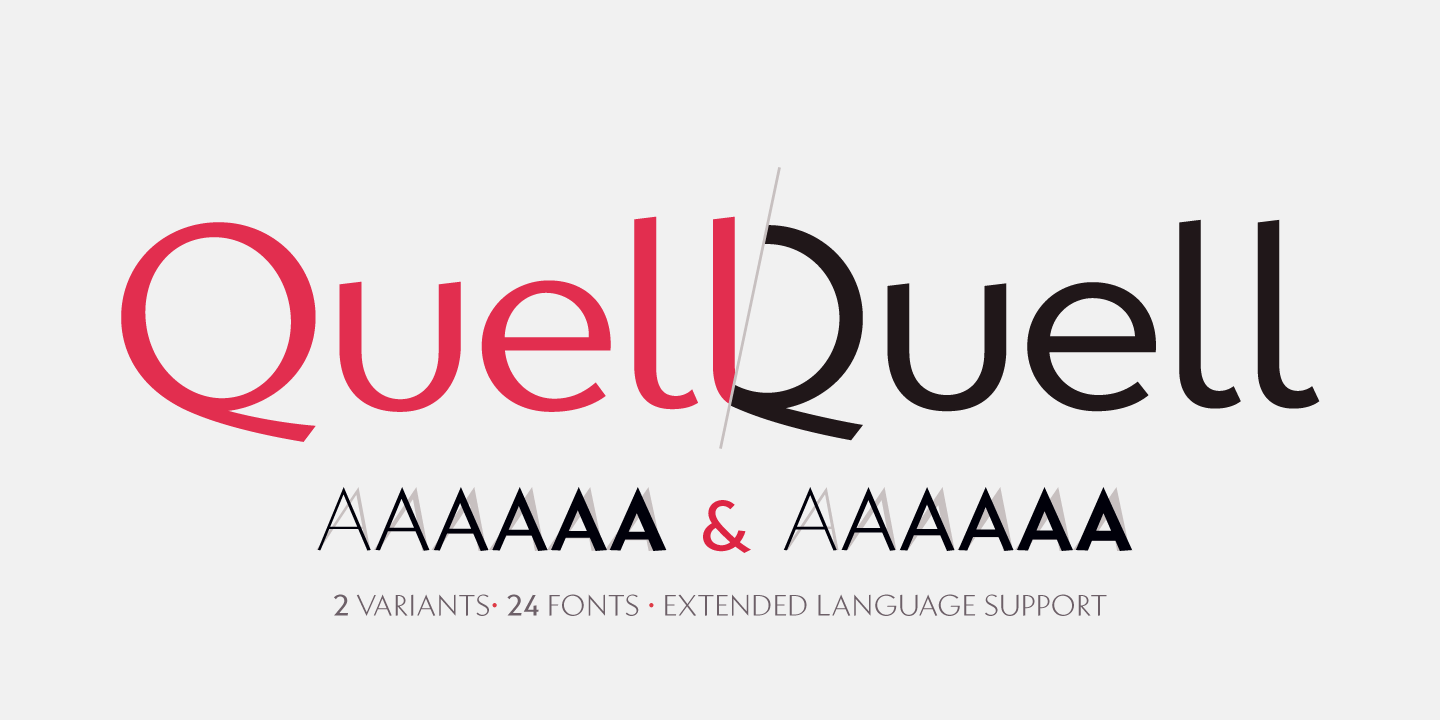
The Quell Font is perfect for various design applications including peaceful wellness branding, calming meditation app interfaces, tranquil spa marketing, serene therapy clinic graphics, mindfulness retreat materials, peaceful nature sanctuary signage, calming mental health resources, and soothing relaxation product packaging. This tranquil typeface works exceptionally well for wellness brands and projects requiring peaceful calm with therapeutic appeal.
What makes Quell Font exciting is its calming and soothing character that instantly quiets the mind and creates peaceful environments with therapeutic tranquility. The font features gentle letterforms with serene aesthetics and calming qualities that evoke feelings of peace, relaxation, and inner harmony. Its tranquil styling and quelling appearance make it perfect for brands that want to provide relief from stress and connect with audiences seeking peaceful sanctuary from life's overwhelming pressures and anxieties.
The Quell Font family includes multiple weights and styles, offering designers flexibility for diverse wellness applications. The family typically consists of regular, light, medium, and gentle variations, along with peaceful decorative elements and calming ornaments, providing comprehensive coverage for projects that need both tranquility and visual serenity across different therapeutic contexts.
Whether you're working on wellness services, mental health support, or peaceful lifestyle campaigns, Quell Font Free Download delivers the calming quality and visual tranquility that modern wellness designers desire. The font's peace-inspired design combined with its excellent readability makes it an essential tool for creating compelling visual communications that promote inner peace and bring the soothing spirit of therapeutic calm to life.